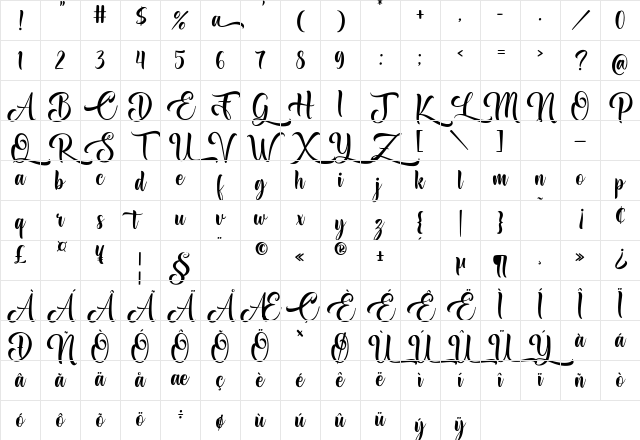
Awake the Beauty Regular
Foundry: CAT.B
Designer: CAT.B
Design Context for Awake the Beauty
Awake the Beauty is a composed and adaptable typeface that performs quietly and consistently across a wide range of design contexts.
Who designed the Awake the Beauty Regular font?